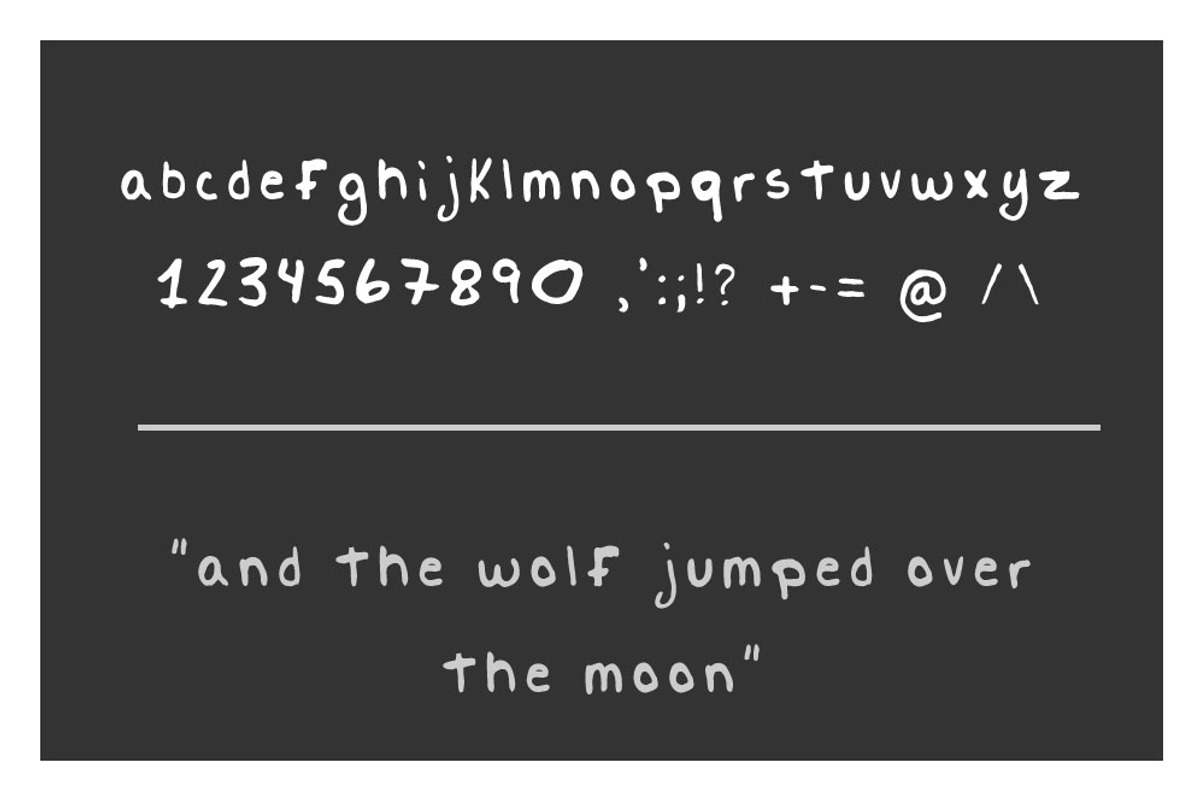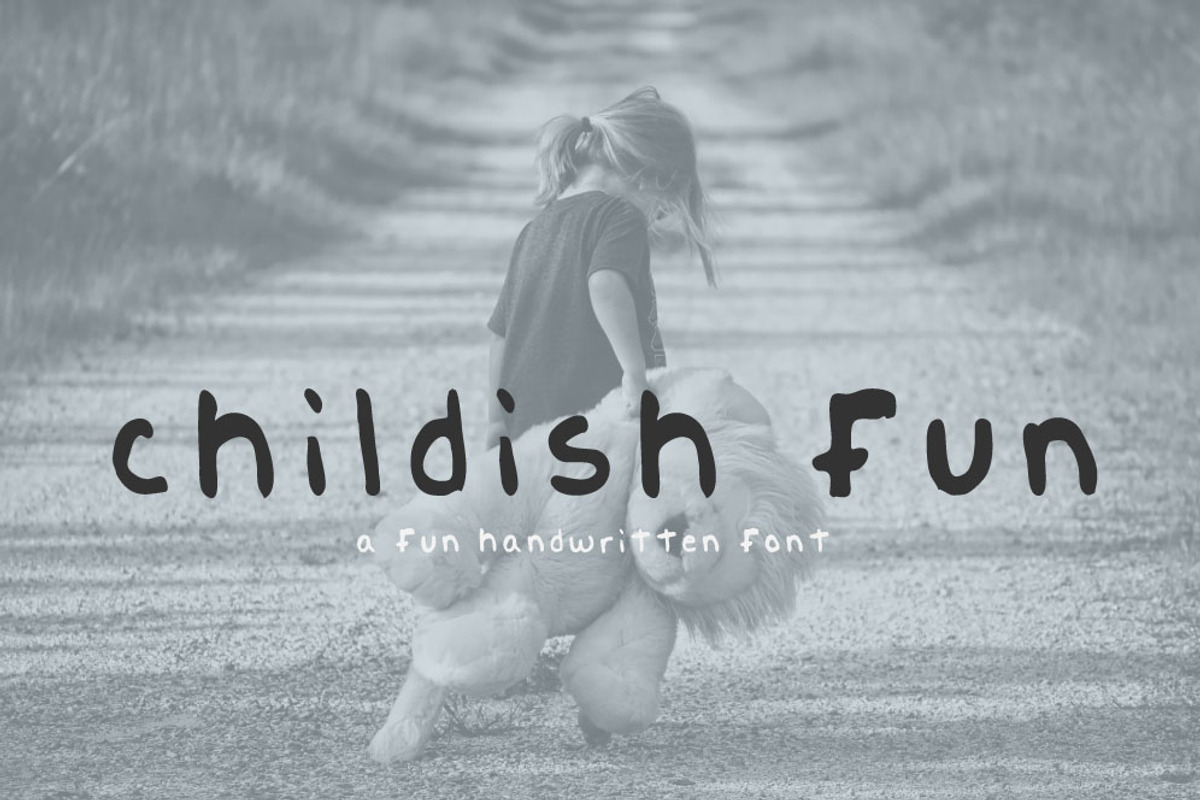
Handmade font - Childish Fun
Introducing Childish Fun , it's a handmade font expressing childlike tendancy. It's fun, simple and far from perfect.
Handmade font - Childish Fun by KMY-Design fits naturally into Branding, posters, packaging, typography.